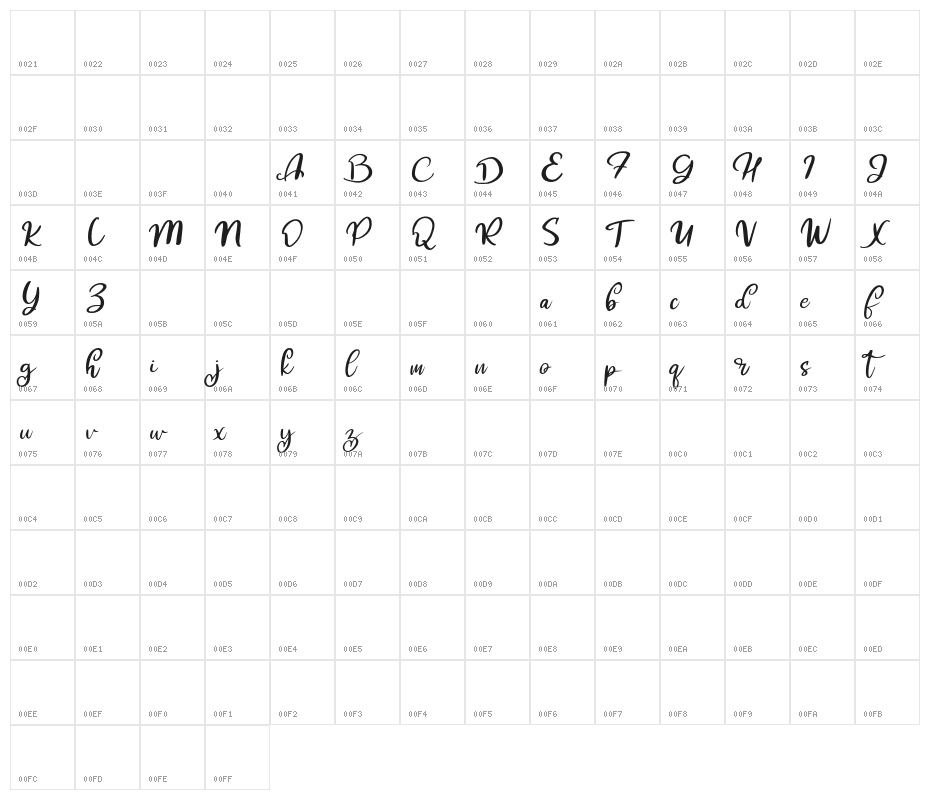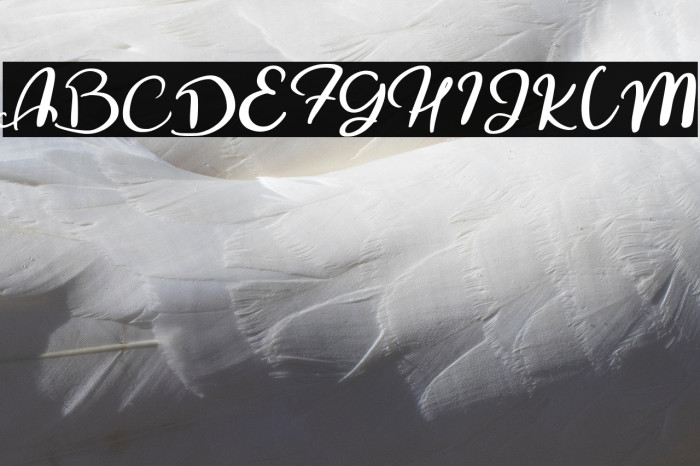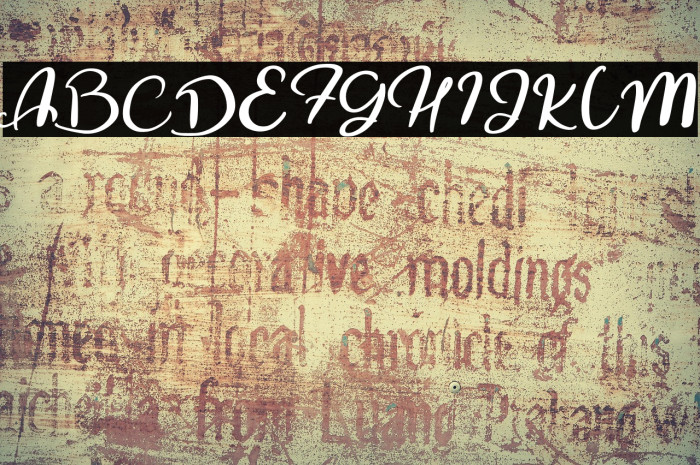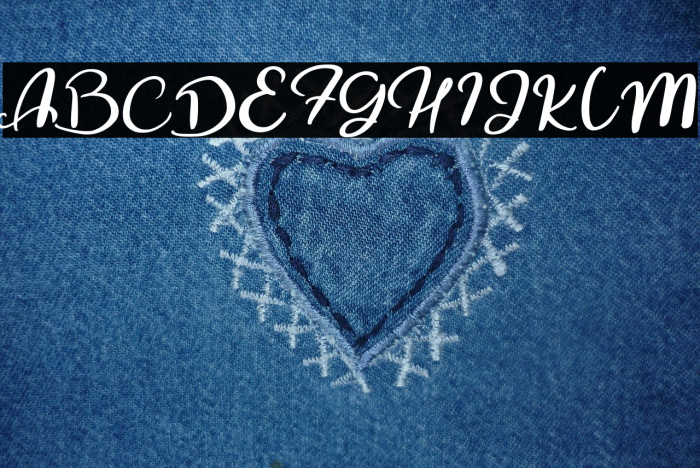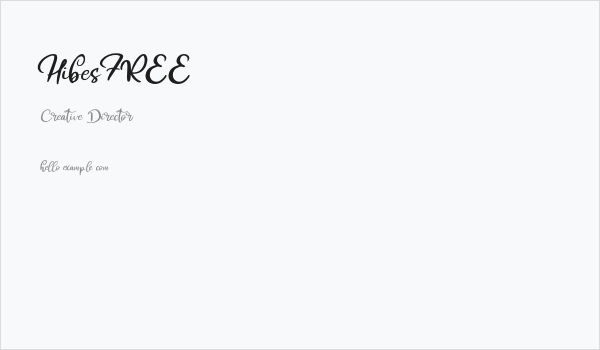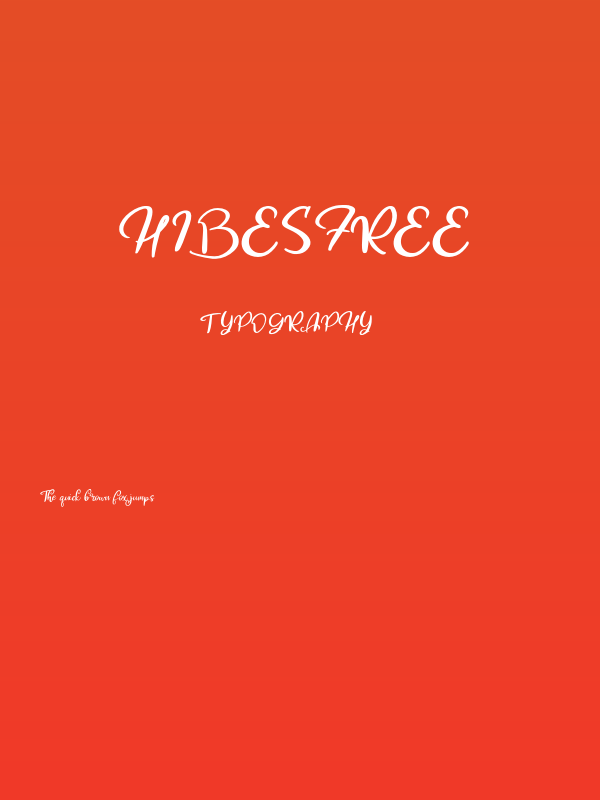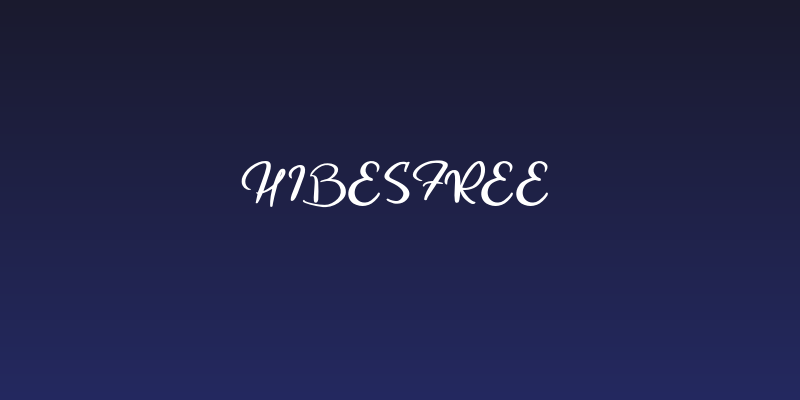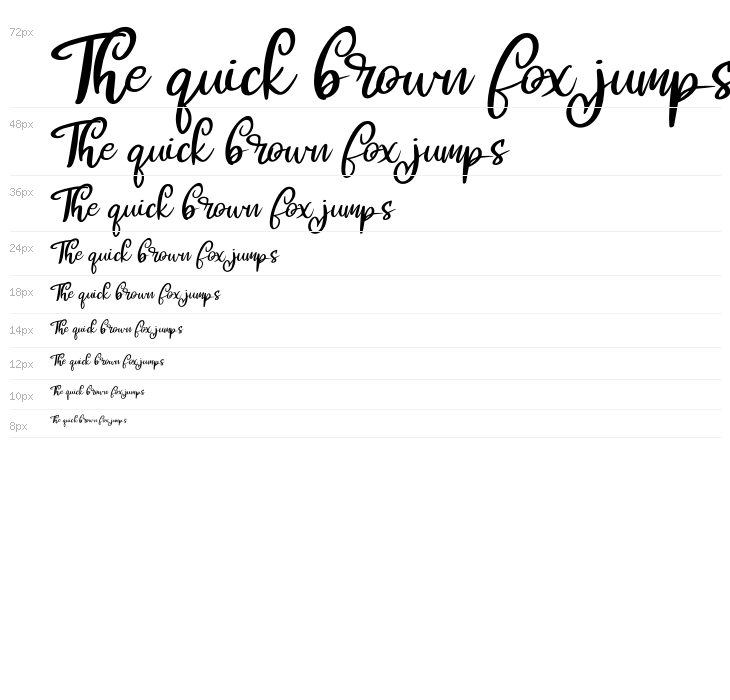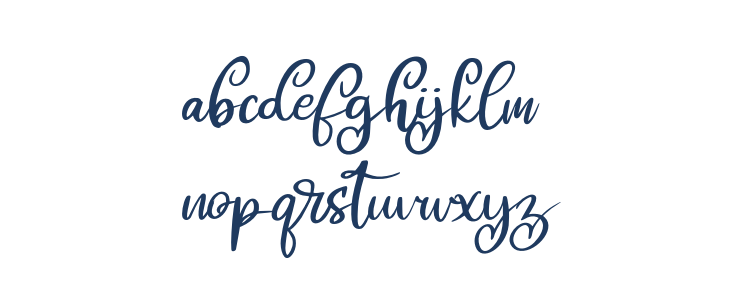
HibesFREE Font
HibesFREE Description
This font features an elegant and flowing script style, characterized by its smooth, cursive strokes and decorative flourishes. The uppercase letters are bold and expressive, with a consistent slant that adds a sense of motion and grace. The lowercase letters maintain a harmonious balance with the uppercase, featuring intricate loops and swashes that enhance the font's ornate appearance. The numbers and special characters are designed to match the overall aesthetic, ensuring a cohesive look across all text elements. This font exudes a sense of sophistication and artistic flair, making it ideal for projects that require a touch of elegance.
| Proposed Projects | Ideal for wedding invitations, elegant branding, greeting cards, and artistic posters. |